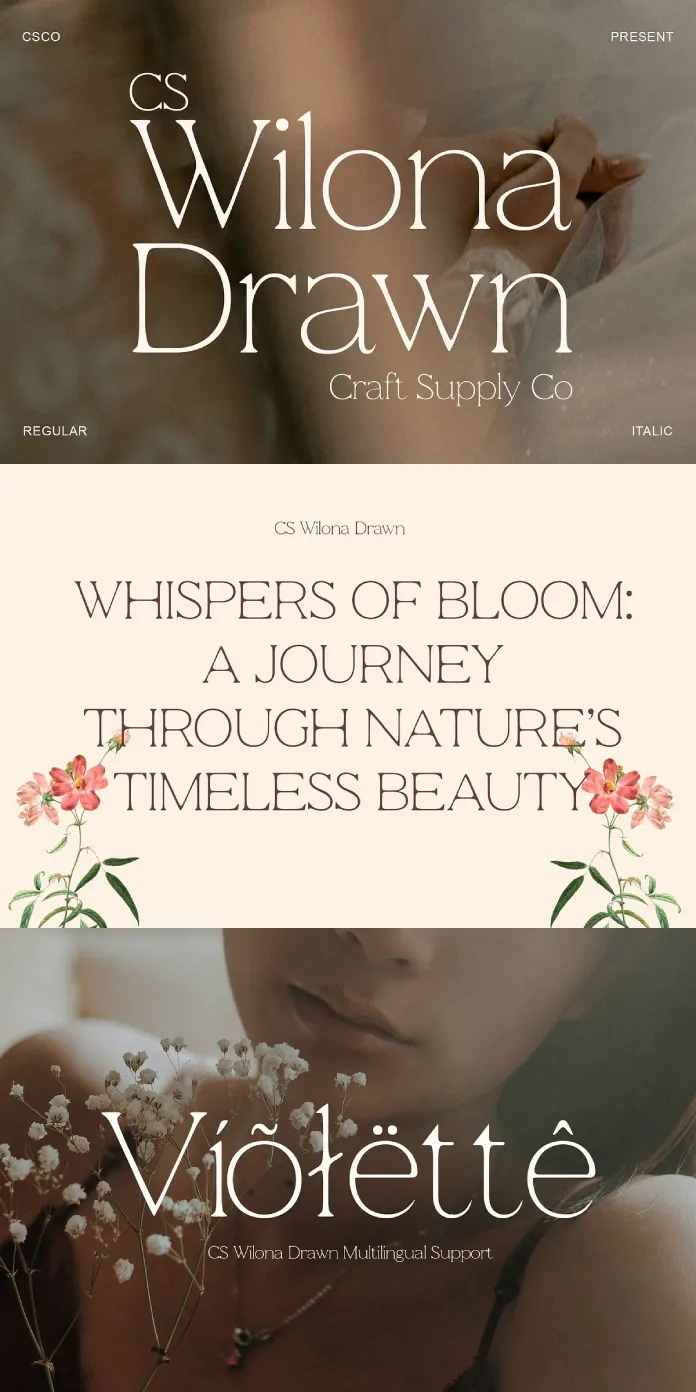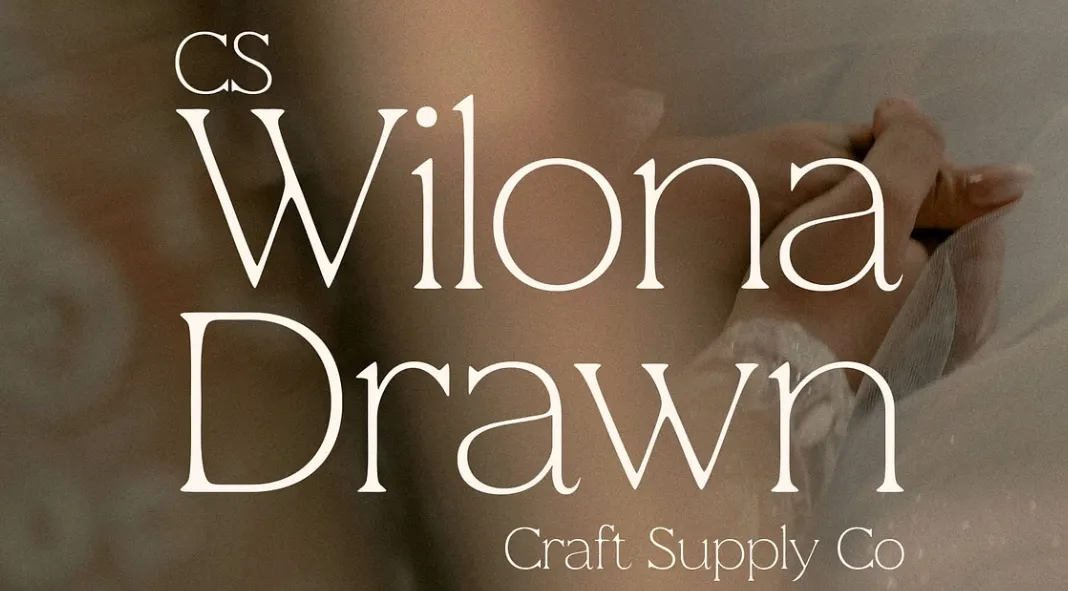
Okay, so first things first, did you notice how clean this typeface looks? The letters of CS Wilona Drawn are incredibly crisp. Each curve, each line is just so defined. It’s a serif font, but it doesn’t feel stuffy, does it? There’s an undeniable modernity to it.
Now, think about how that starkness could play out. It’s almost like a perfectly tailored suit. It exudes professionalism, refinement, and an underlying sense of high quality. You see that and you immediately think, “Oh, that’s sophisticated.”
But, hang on a second, and here’s where it gets really interesting, right? Look closer. Did you spot those little imperfections? It’s a subtle, almost hidden, hand-drawn effect. It’s like the designer whispered, “Hey, I’m not a machine; I have a soul.” It adds this lovely artistic edge that you wouldn’t expect, a slight touch of humanity that makes this font stand out from other serifs.
It’s a beautiful blend, isn’t it? It’s like two worlds colliding – sharp precision meeting a soft, hand-crafted feel. Do you think that makes it more interesting? I sure do.
Versatility and Intended Uses
So, where would you use something like this? Well, I think it screams luxury. Imagine it on the cover of a high-end fashion magazine or on a logo for a premium beauty brand. It’s sleek enough to be high-class but also unique because of that hand-drawn feel. The balance is there.
And, of course, editorial design. Think elegant layouts in magazines or even fancy invitations. This typeface wants to elevate the overall aesthetic, and it certainly would. Have you seen any examples recently that you think would be perfect?
Multilingual Support
It’s cool that this font has multilingual support. This shows the designer really thought about making it widely usable. It can handle accents and special characters. That detail makes it perfect for a global audience.
The Nitty-Gritty: More About the Visuals
Did you notice the different weights of the font? You see “Regular” and “Italic”, right? The use of the regular weight shows how powerful the font is in its regular state. And then there’s the italic, which just adds a touch of elegance. It can subtly change the mood of whatever it’s in. It provides the user with a multitude of options to play around with.
The CS Wilona Drawn typeface shows what happens when modern meets artistic. It is the blend of precision and personality. That’s what makes it so striking and so versatile.